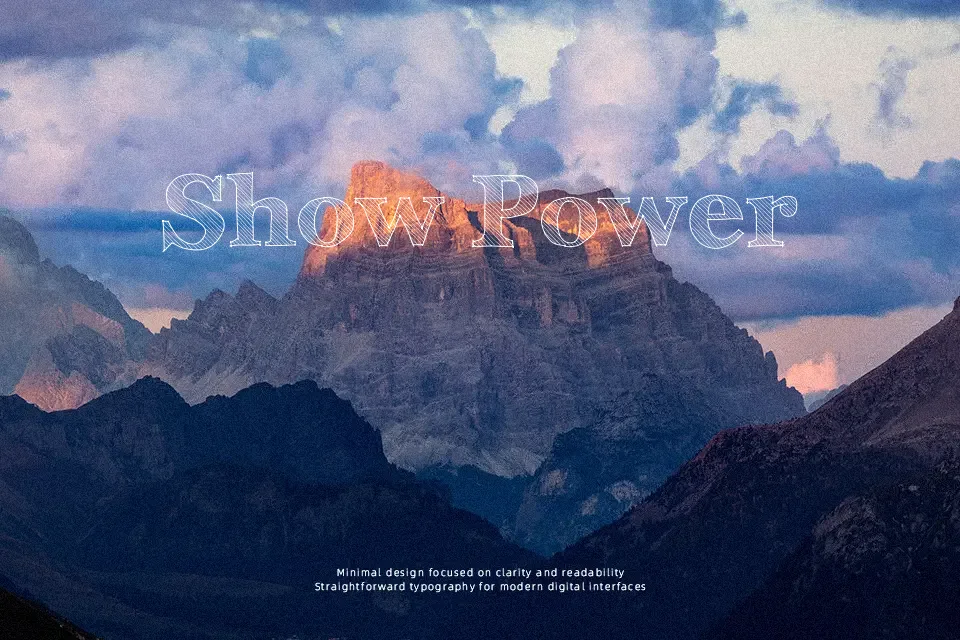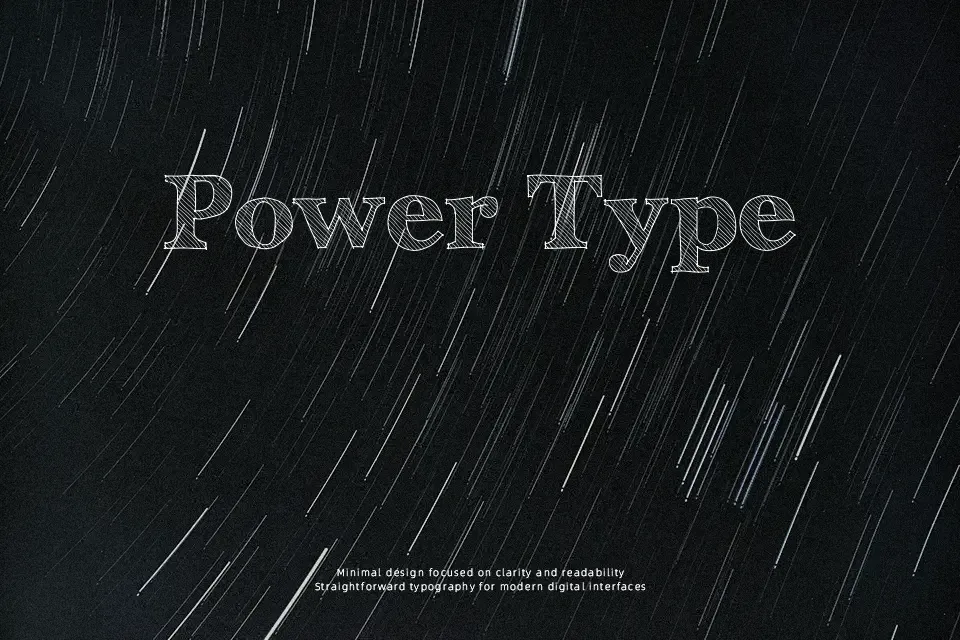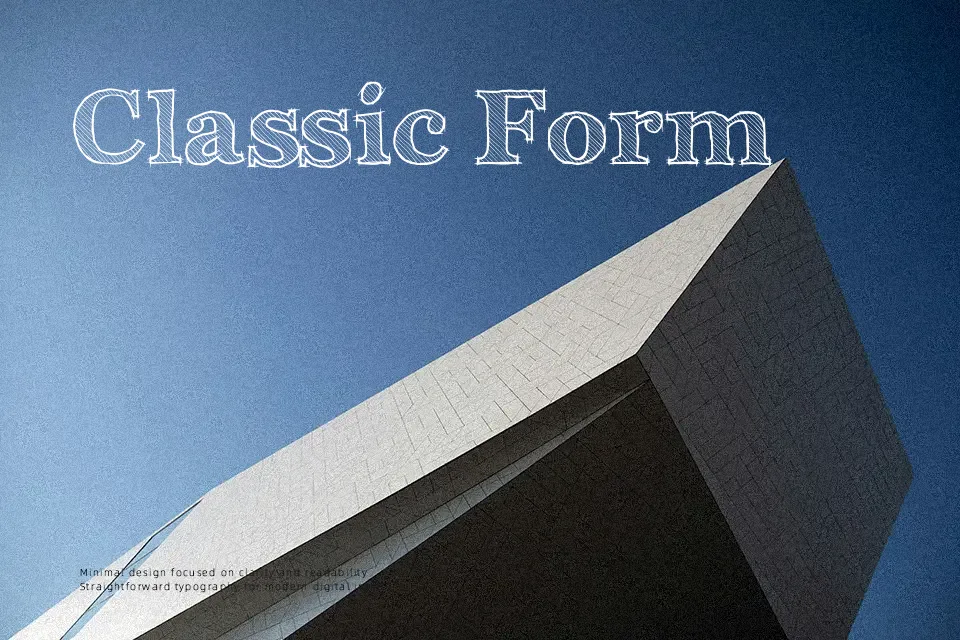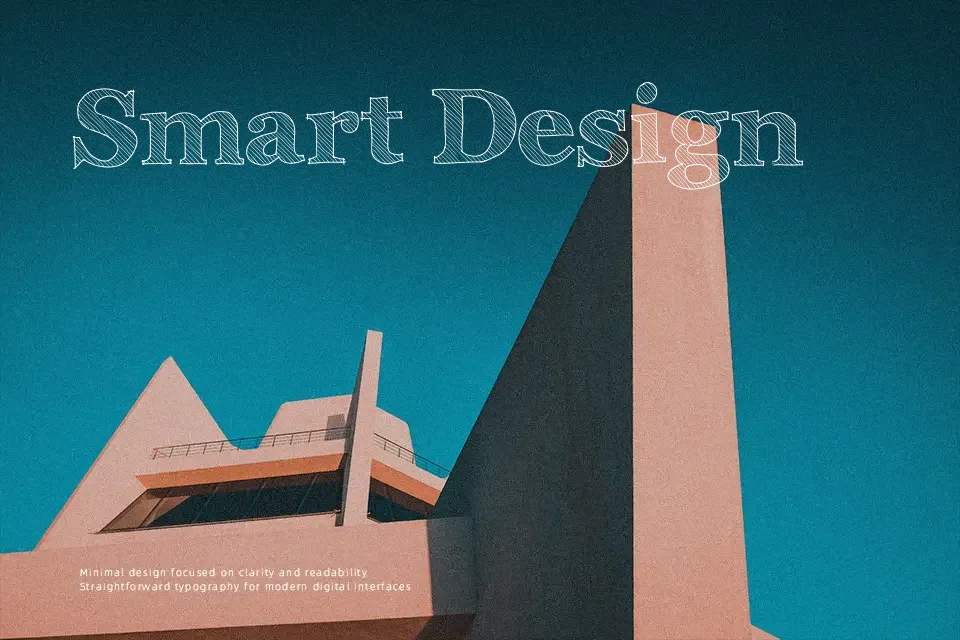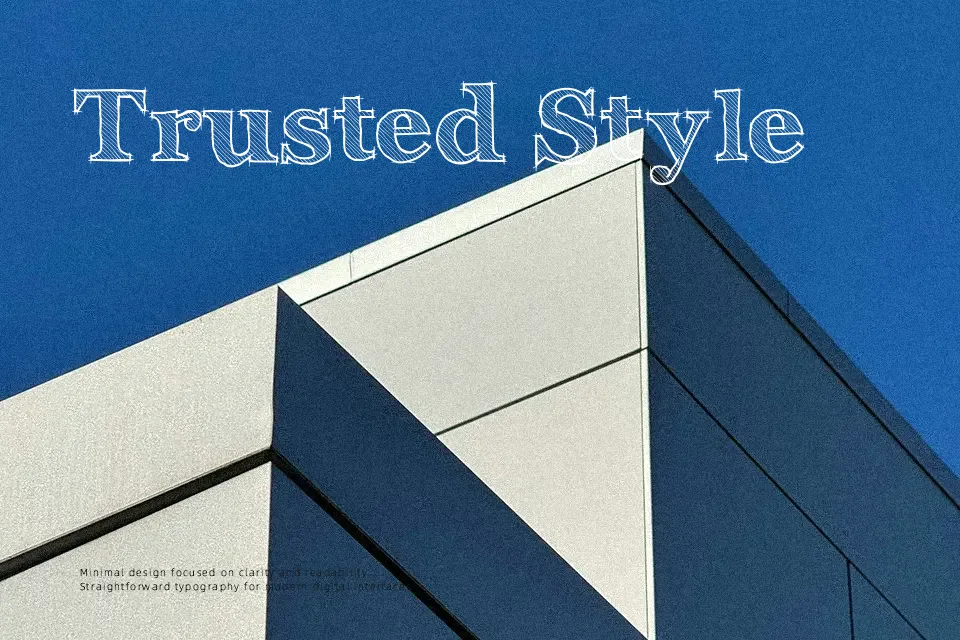
Archistico Font
Designed by Emilie Rollandin
Archistico’s letterforms are built from outlined strokes filled with diagonal hatching, giving each character a hand-sketched, blueprint-draft quality. The spacing feels loose and artisanal, and the two weights — Simple and Bold — shift the visual energy from airy illustration to something heavier and more assertive. It reads well at display sizes on packaging labels, band merchandise, and street-food signage, where the rough texture adds personality rather than noise. That same texture, however, becomes a liability at small sizes or in print-heavy contexts: the diagonal stripe pattern collapses and characters lose definition fast. Use it when the artwork calls for a hand-crafted, zine-like feel; skip it when legibility is the priority over style.
Best For:- Apparel and merchandise graphic prints
– Artisan food or beverage packaging headers
– Music event posters and band branding
– Street-style social media visuals
Not Ideal For:- Body text or long paragraph reading
– Corporate reports and formal business documents
– Small-size UI labels or mobile interfaces
– High-legibility signage in low-light environments
Perfect for advertising, branding, and packaging, with a artistic and decorative style.